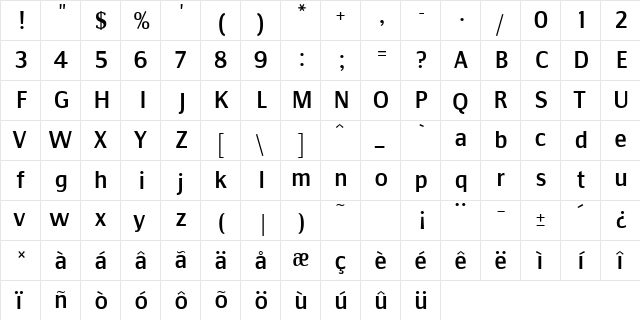
Communist Sans
| Style | Sans |
Design Context for Communist Typeface
Communist offers clean, dependable letterforms without strong stylistic allegiance, making it a practical choice for designers who need flexibility.